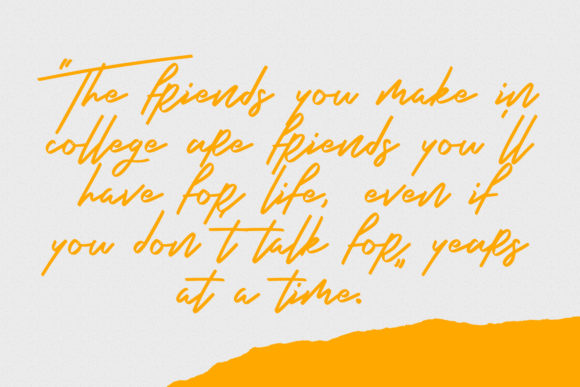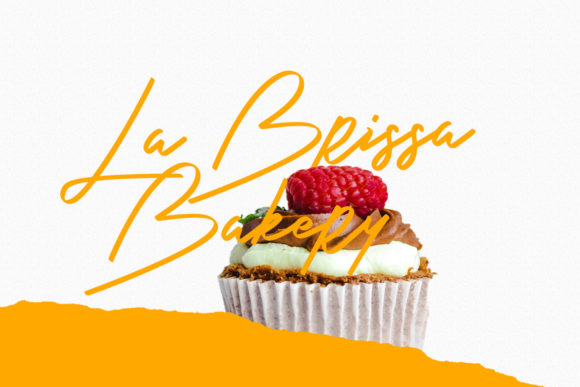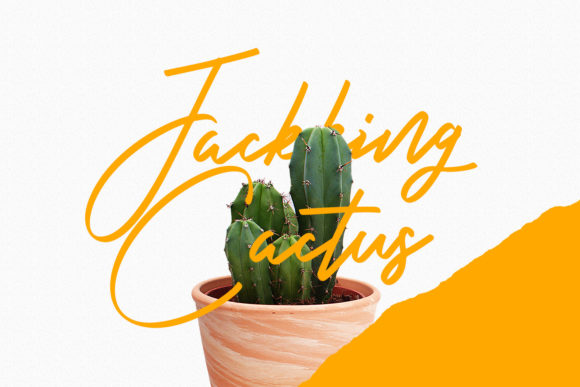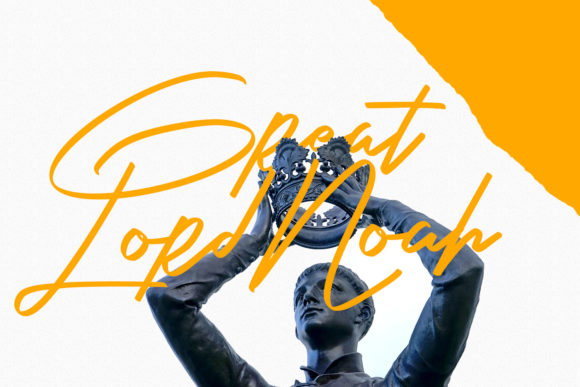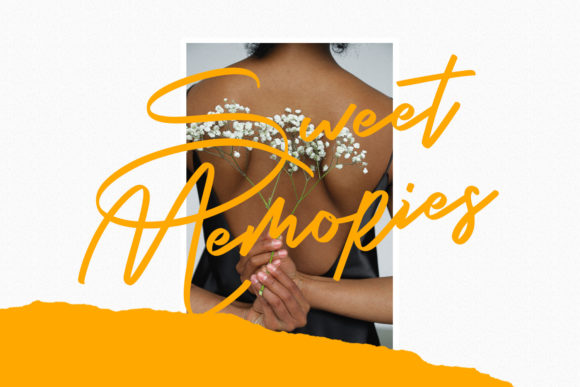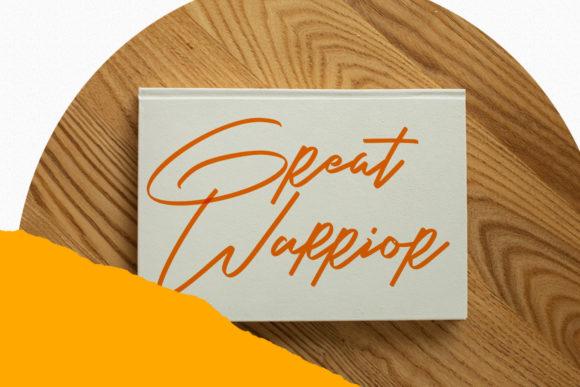
Introduction to Hooney Vibes Font
Hooney Vibes is an expressive signature script font.
It looks lovely on wedding invitations, thank you cards, quotes, greeting cards, logos, business cards and every other design which needs a customized touch .
Key Features of Hooney Vibes Font